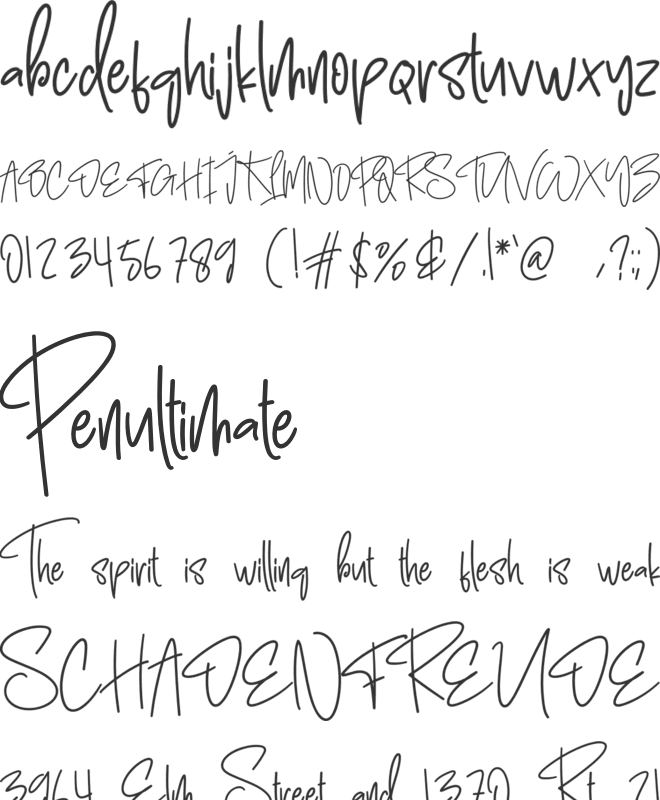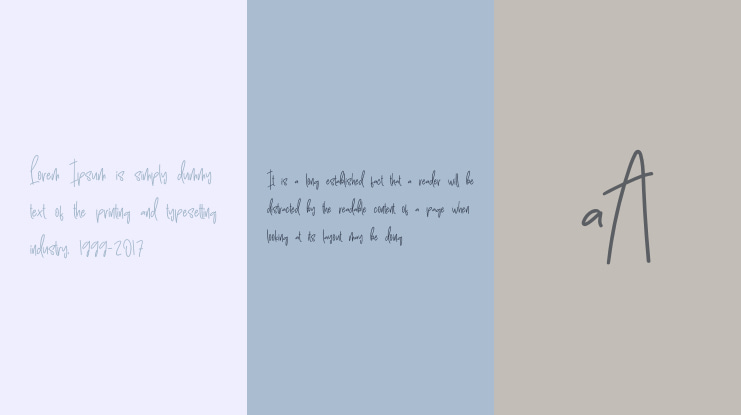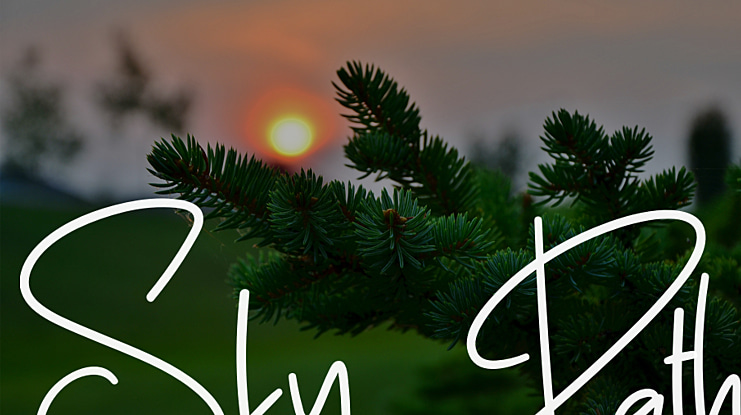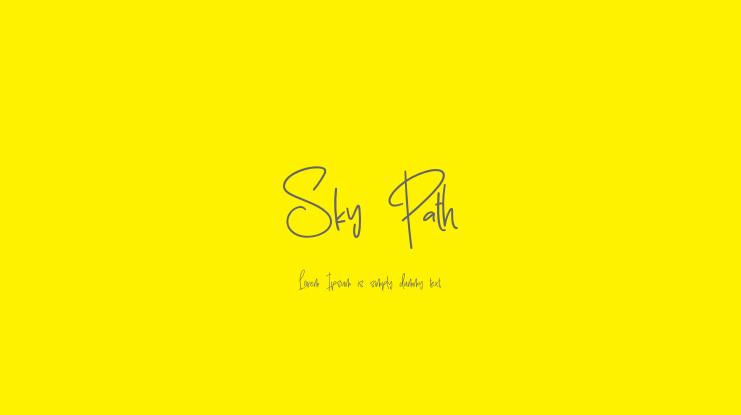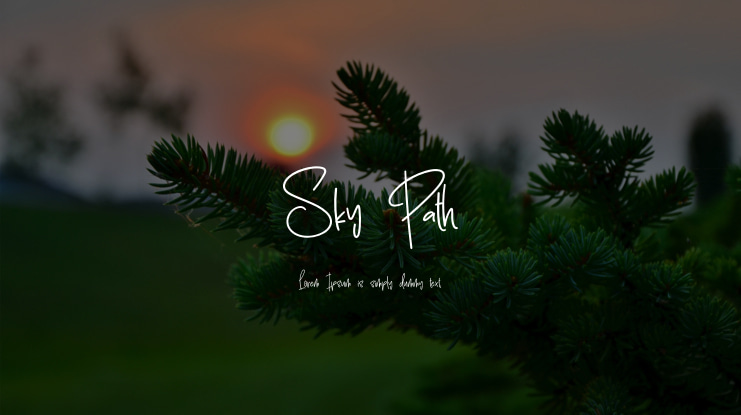
Sky Path Font
Discover our unique and innovative products that will provide you with an exceptional experience. Our cutting-edge letter styles are ideal for a wide range of applications including wall displays, wedding invitations, social media posts, logos, advertisements, product packaging, labels, photography, watermarks, invitations, stationery, and any project that requires elegant handwriting.